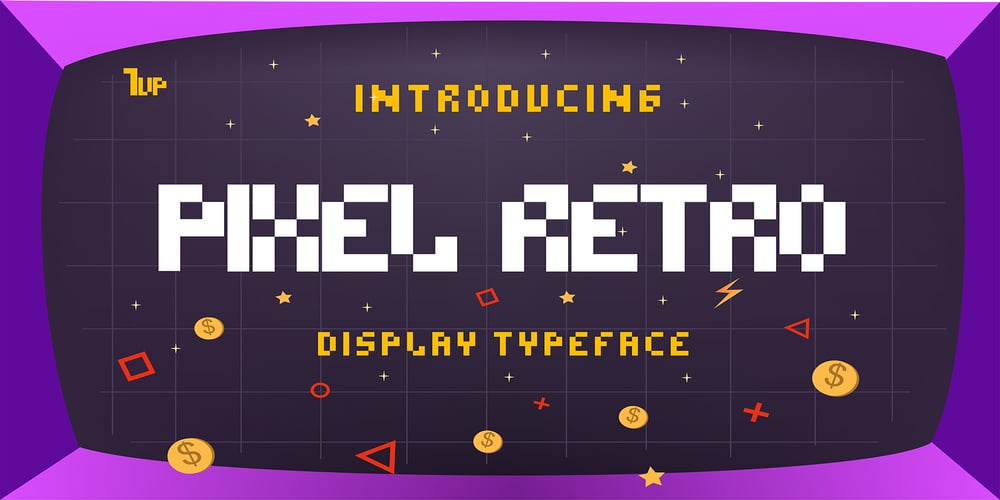
Pixel Retro Font Family was designed by JK Creative and published by JK Creative. Pixel Retro contains 1 styles and family package options. Introducing Pixel Retro – Display Typeface FontPixel Retro is a bitmap font base on the from Namco Arcade Games. This Font is Perfect for Movie, Game, Film, Logo Brand and T shirt DesignFEATURES- Uppercase and Lowercase letters- Numbering and Punctuations and Multilingual Support- Works on PC or Mac- Simple Installation- Support Adobe Illustrator, Adobe Photoshop, Adobe InDesign, also works on Microsoft WordHope you Like it.**Note: All images on the demo is just for preview purpose only and not actually included on the files**